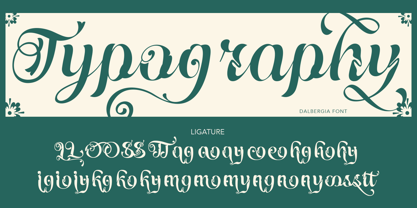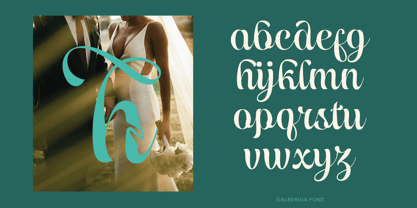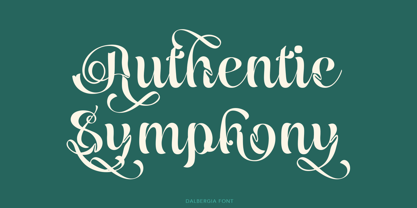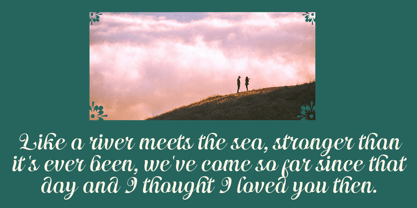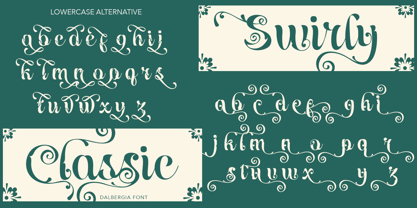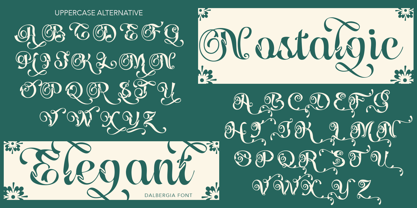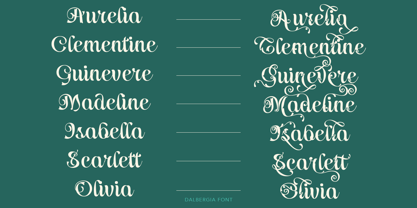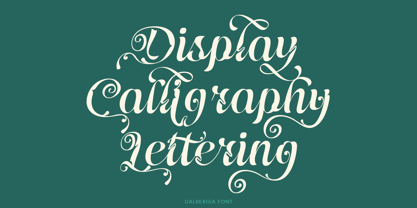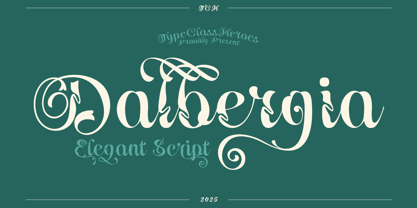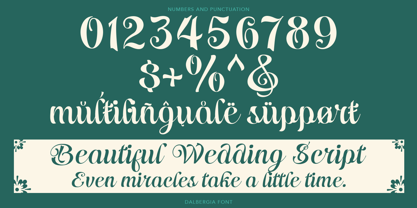
Dalbergia
The Dalbergia Font Family was designed by Suandana ipandemade and published by TypeClassHeroes. Dalbergia contains 2 styles and family package options. More about this family
Hello I'm really excited to introduce Dalbergia is a script with classic feel become an elegant wave and curly and this font has the potential to bring each of your creative ideas to the highest level. With style combine with ligatures and special alternative glyphs so you can create a lots with layouts and compositions. Dalbergia brings a touch of luxury and bespoke custom typography to logos, websites, social media quotes, wedding branding, and many more.